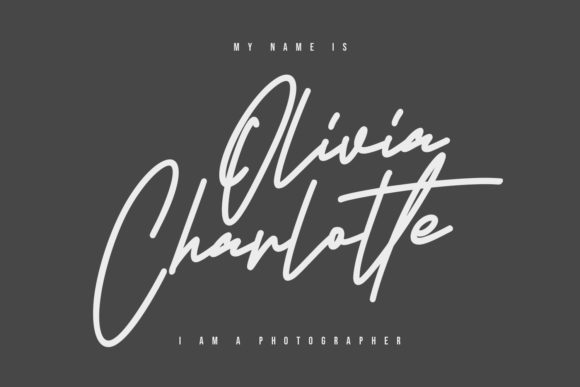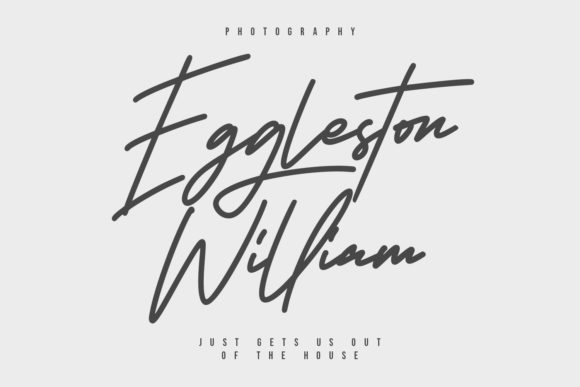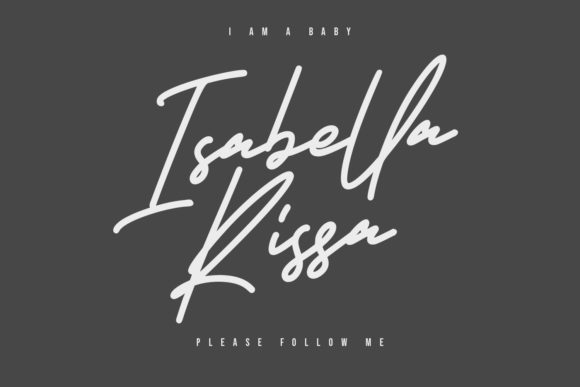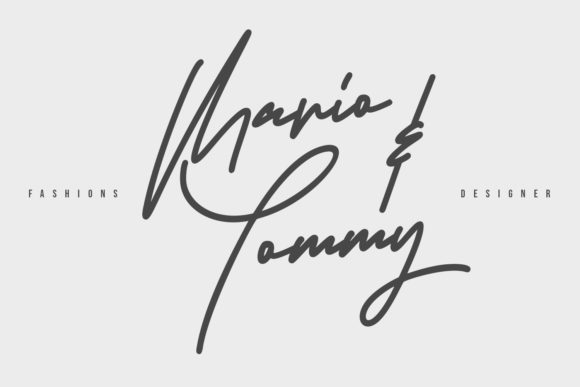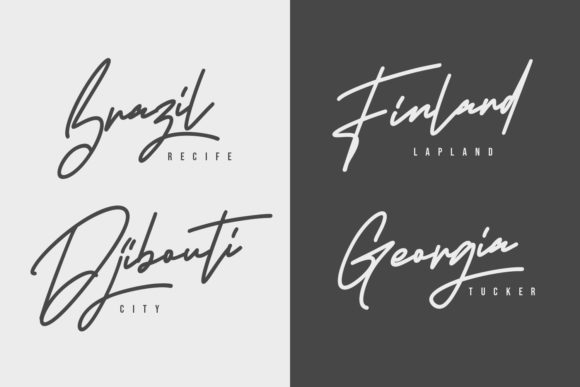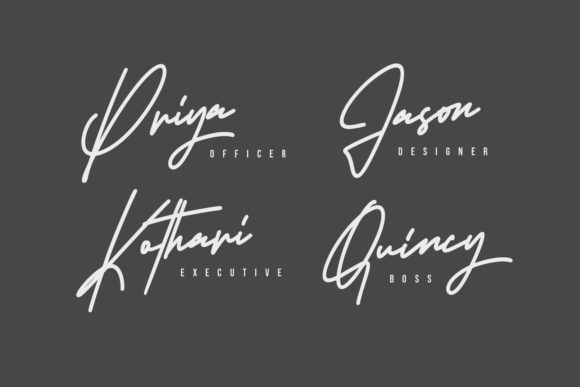
Discover the Elegance of Armstrong Signature Font
Are you on the hunt for a font that exudes sophistication, elegance, and a touch of modern flair? Look no further than the Armstrong Signature Font. This exquisite handwritten font is masterfully designed to capture the hearts of designers and crafters alike, making it a true favorite in the world of typography.
The Perfect Blend of Classy and Contemporary
Armstrong Signature Font strikes the perfect balance between classic calligraphic influences and a fresh, modern aesthetic. Its unique blend of traditional and contemporary elements makes it an ideal choice for a wide range of design projects, from wedding invitations and branding materials to packaging and digital media.
What Makes Armstrong Signature Font Stand Out?
- Exquisite Handwritten Design: Each letter is carefully crafted by hand, giving the font a personal and intimate feel that’s hard to replicate with machine-generated fonts.
- Classy Calligraphic Influences: The font’s calligraphic roots are evident in its elegant strokes, flourishes, and letterforms, adding a touch of sophistication to any design.
- Contemporary and Fresh: Despite its classic influences, Armstrong Signature Font feels modern and current, making it perfect for designers looking to create unique and eye-catching designs.
- Versatile and Adaptable: This font is incredibly versatile, suitable for use in a variety of design projects, from print materials to digital media, and can be easily paired with other fonts to create stunning combinations.
Why Designers and Crafters Love Armstrong Signature Font
Designers and crafters adore Armstrong Signature Font for its ability to elevate their projects to new heights. Whether you’re creating:
- Wedding Invitations and Stationery: Add a touch of romance and elegance to your wedding designs with this beautiful font.
- Branding and Packaging: Use Armstrong Signature Font to create stunning logos, labels, and packaging that reflect your brand’s personality and style.
- Digital Media and Social Graphics: Make your social media graphics, blog posts, and website headers stand out with this gorgeous font.
Tips for Getting the Most Out of Armstrong Signature Font
To make the most of this exquisite font, consider the following tips:
- Pair it with Contrasting Fonts: Combine Armstrong Signature Font with simpler fonts to create visual interest and hierarchy in your designs.
- Experiment with Colors and Textures: Play with different colors and textures to add depth and dimension to your designs.
- Don’t Overdo it: Use the font sparingly to avoid overwhelming your design – sometimes, less is more.
In conclusion, Armstrong Signature Font is a true gem in the world of typography. Its exquisite handwritten design, classy calligraphic influences, and contemporary flair make it the perfect choice for designers and crafters looking to add a touch of elegance and sophistication to their projects. With its versatility, adaptability, and range of creative possibilities, it’s no wonder that Armstrong Signature Font has captured the hearts of many. So why wait? Fall in love with this beautiful font and bring your projects to the highest levels!